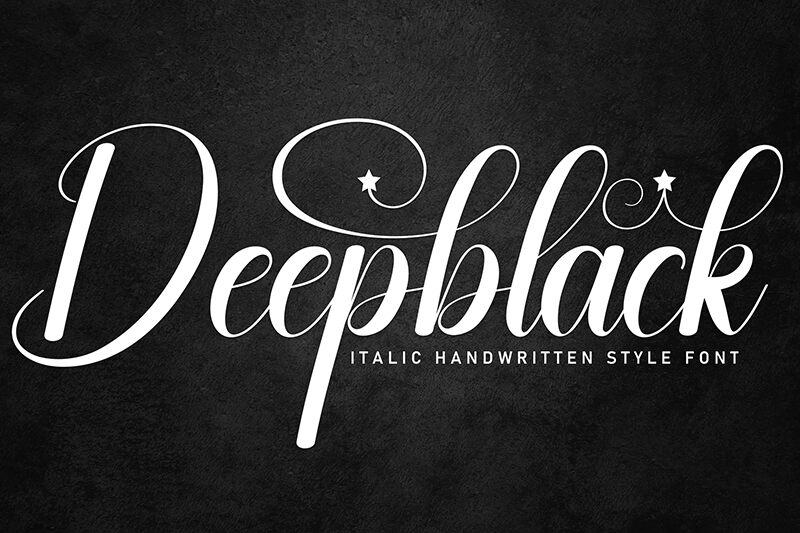
Deepblack
Deepblack font by Andi Moz is a free handwritten font with an elegant style. Its cursive script connects with flowing lines for an overall graceful appearance and sophisticated mood. The combination of simplicity and classiness makes this font a fantastic choice for those who want to impress with typography.
Write words, names, sentences, or even paragraphs when you use this font in occasions like weddings, birthdays, or anniversaries. Use Deepblack also digitally in business cards, brandings, displays, labels, quotes…and the list goes on!